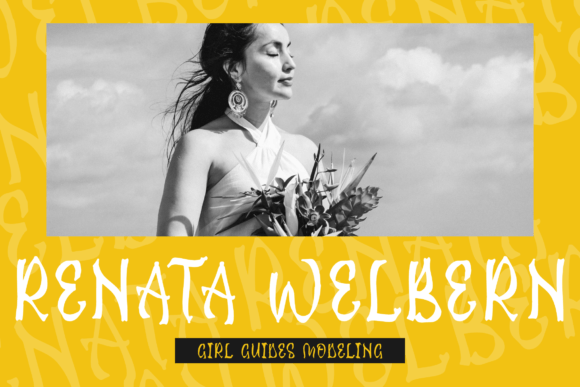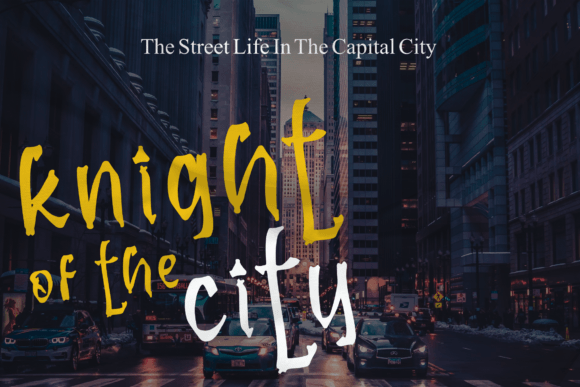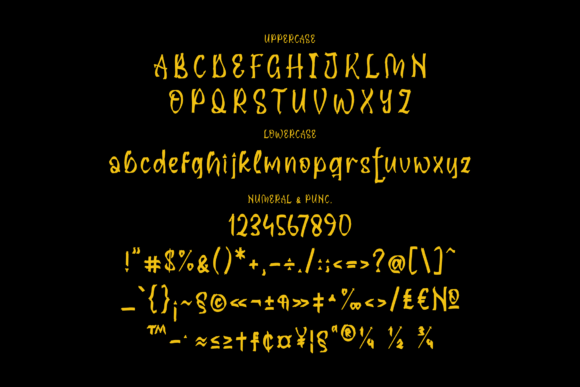
About Jacklin Slasher Font
Jacklin Slasher – Quirky handwritten font, suitable for any projects such as logos, branding projects, homeware designs, product packaging, mugs, quotes, posters, shopping bags, t-shirts, book covers, name cards, invitation cards, greeting cards, labels, photography, watermark, special events, and all your other lovely projects that need unique typography.